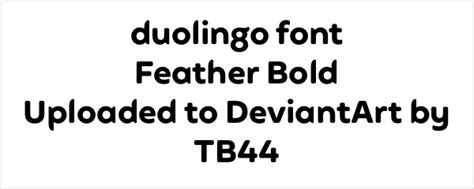
Feather Bold Font. Web discover the story behind duolingo's custom font, feather, and how we specifically designed it for the language learning platform. Every font is free to download!